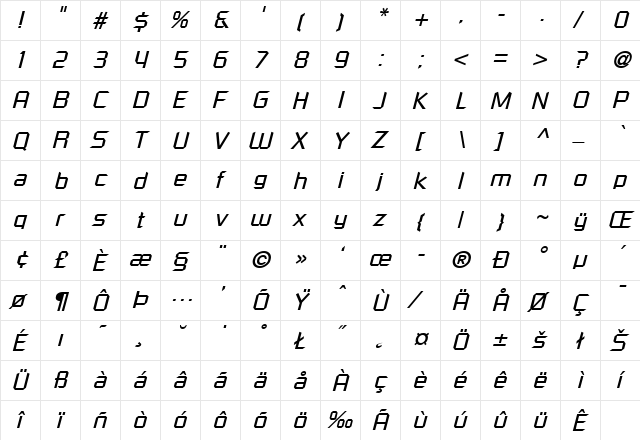
RussellSquare-Oblique Regular
Design Context for RussellSquare-Oblique Typeface
RussellSquare-Oblique takes a measured approach to typography — its balanced proportions and neutral character make it a reliable workhorse for both digital and print work. The dynamic lean of this cut emphasises speed and emphasis in any layout.
Pro Tip: Use RussellSquare-Oblique for emphasis, pull quotes, and subheadings where its slanted energy can add rhythm to the layout.